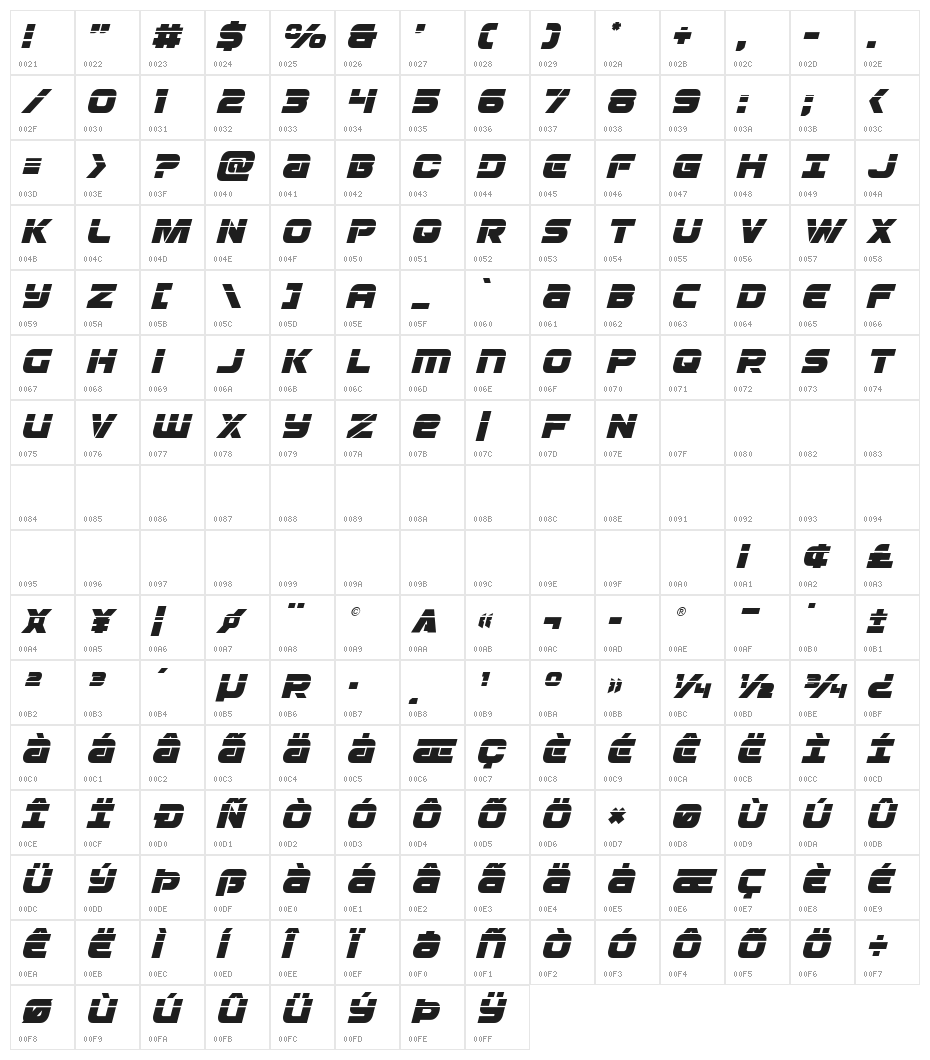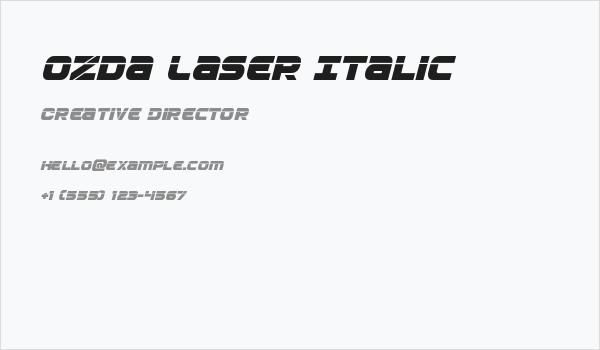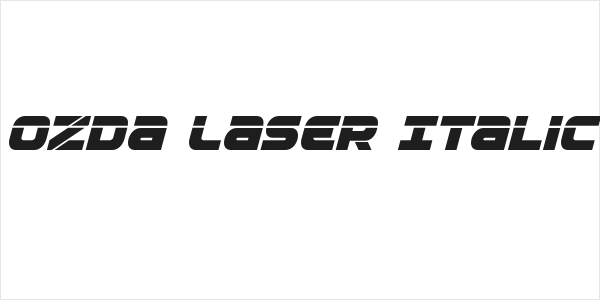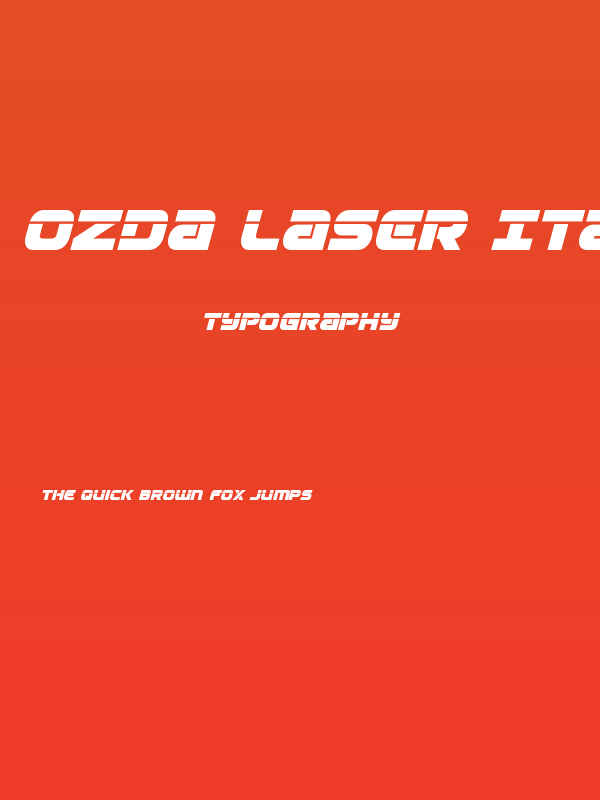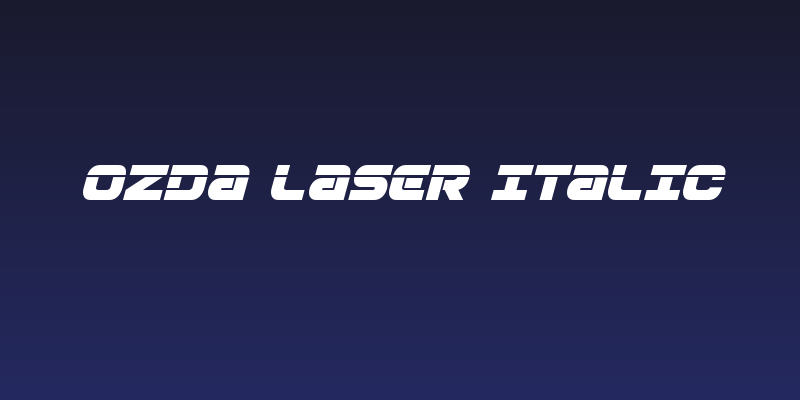
Ozda Laser Italic Font
Ozda Laser Italic Description
This font features a futuristic and dynamic design with a strong italic slant, giving it a sense of motion and speed. The characters are bold and have a geometric structure, with sharp angles and clean lines. The uppercase and lowercase letters maintain a consistent style, while the numerals and special characters complement the overall aesthetic. The font's distinct appearance makes it suitable for projects that require a modern and edgy look.
| Proposed Projects | Ideal for technology branding, sports team logos, video game titles, and sci-fi themed designs. |